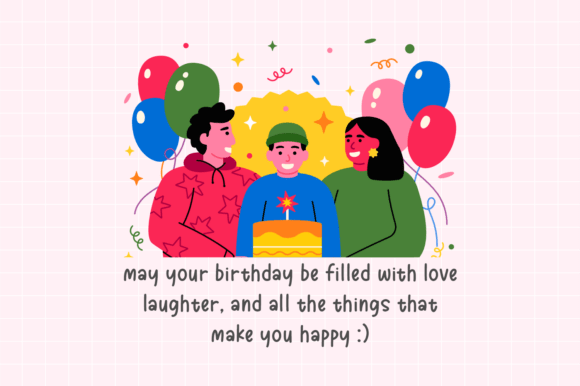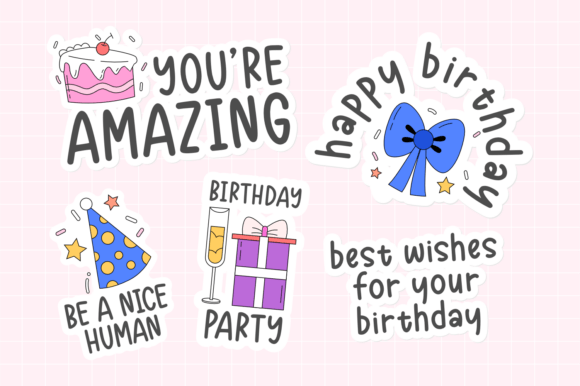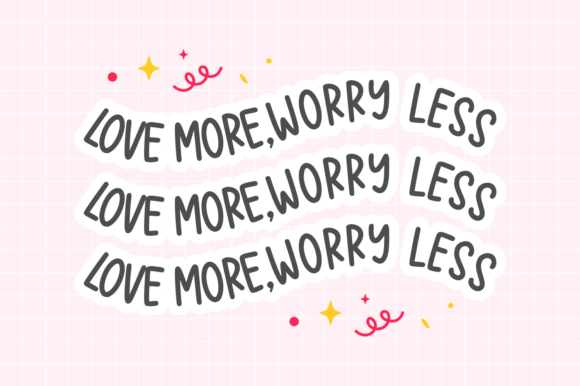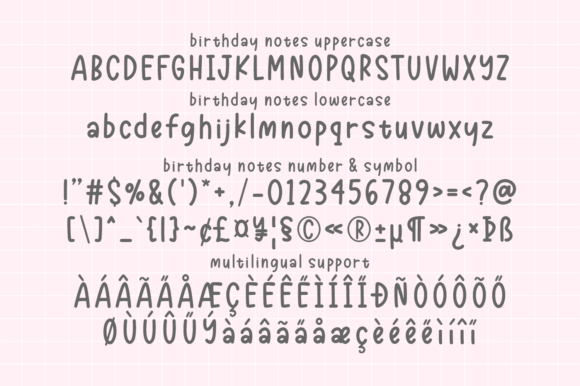
Designing Delight: The Birthday Notes Font
Have you ever been stuck on a design project, searching for the perfect font to capture the essence of the occasion? Perhaps it’s a birthday card, a party invitation, or a celebratory banner. Whatever it is, you know the right font can make all the difference in conveying the joy and excitement of the moment.
That’s where Birthday Notes Font comes in – a charming display font designed to bring a touch of whimsy and playfulness to your creative ventures. This enchanting font is perfect for adding a pop of color and sparkle to your designs, making it an ideal choice for crafting unique birthday cards, invitations, and celebratory artifacts. Whether you’re a seasoned designer or a creative enthusiast, Birthday Notes Font is sure to be a valuable addition to your toolkit.
Birthday Notes Font Key Features
- Unique Characteristics: The Birthday Notes Font features a playful, handwritten style with bold and colorful strokes, making it perfect for adding a personal touch to birthday cards, invitations, and other celebratory materials.
Birthday Notes Font Review
As a designer, I was excited to dive into the Birthday Notes Font, a script font specifically designed for birthday messages and celebrations. Here’s my honest review.
- The Birthday Notes Font has a unique, hand-written feel that’s perfect for adding a personal touch to birthday invitations, cards, and social media posts.
- The font is highly legible, making it easy to read even in smaller sizes, which is essential for digital applications.
- The font family includes a range of weights and styles, allowing for flexibility in design and creative expression.
- The Birthday Notes Font may not be suitable for formal or professional applications due to its casual, handwritten style.
- The font may not be as versatile as other script fonts on the market, limiting its use in certain design contexts.
The Birthday Notes Font is a delightful addition to any designer’s toolkit, perfect for adding a playful touch to birthday-related designs. While it may have some limitations, its unique style and high legibility make it a great choice for digital and print applications where a handwritten feel is desired.
The Birthday Notes Font is commonly used in:
- Digital invitations and party graphics.
- Social media posts and updates.
- Personalized gift tags and cards.